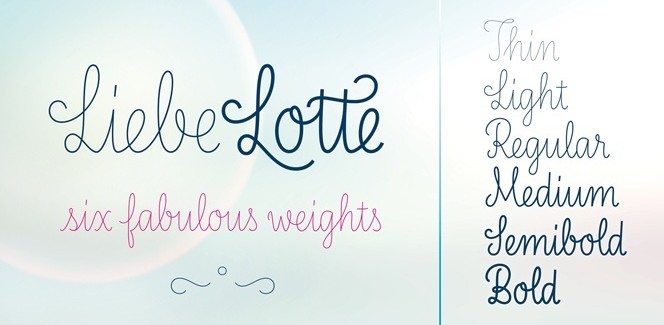
LiebeLotte
LiebeLotte (Dear Lotte) is a new typeface designed by Ulrike Rausch with which she continues her series of typefaces with beautiful women’s names. In fact it could be a great companion to other Liebe fonts like LiebeDoris and LiebeRuth – a fact from which experienced designers could greatly benefit. If we are to describe LiebeLotte with two words – those must be elegant and charming! As a matter of fact Ulrike Rausch claims to have put her heart and soul into this project. By merely looking at the font family itself we could immediately tell that is exactly the case. And being created with so much love means this artistic masterpiece has a soul of its own. With it you get a beautiful handwriting appearance together with masterly crafted swashes. We recommend it for any usage which is aimed at creating something lovely, sweet and unique.
LiebeLotte comes in 6 different weights that provide great versatility– Thin, Light, Regular, Medium, Semi Bold and Bold. It has a magnificent character set and a wide variety of alternative forms and ligatures that could be used in any OpenType-savvy application.
LiebeLotte, as part of Liebe fonts, is another perfect offer from Ulrike Rausch. A bachelor of arts in communication design from the Potsdam University of Applied Science, she has long loved the typography and everything connected to it. Clearly, this love is conveyed in her work and is visible in anything she does in the field of type design. And we, as great fans of her, are happy that we could take advantage!
Designer: Ulrike Rausch
Publisher: LiebeFonts